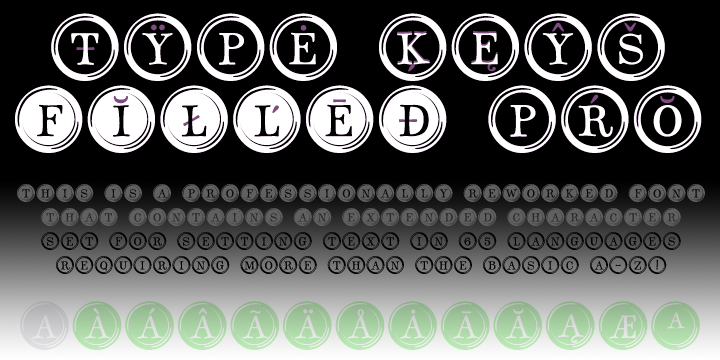
Type Keys Pro
Type Keys Pro is a dingbat and novelty font family. This typeface has two styles and was published by CheapProFonts.
A range of retro initials mimicking the keys of an old style typewriter.
A range of retro initials mimicking the keys of an old style typewriter. Expanded from just a basic ASCII character set to our usual large CheapProFonts selection of glyphs. (I’m not sure all of them appears in the beginning of words, though ;)